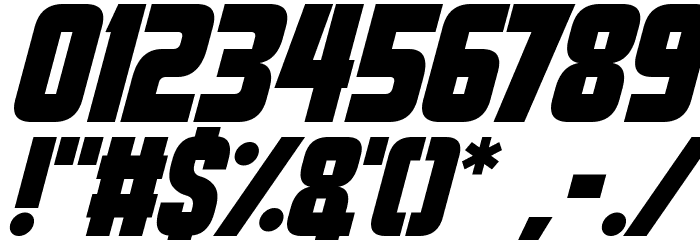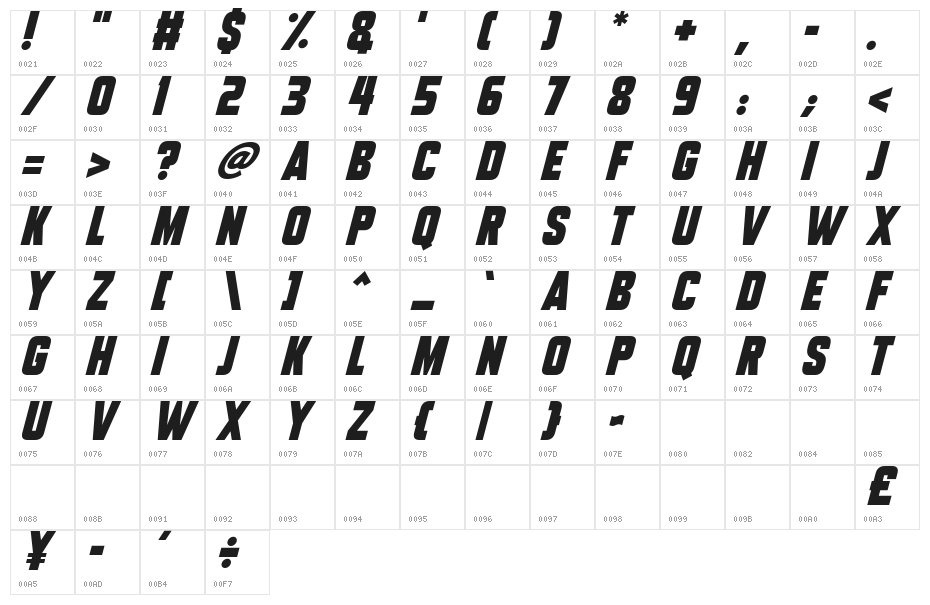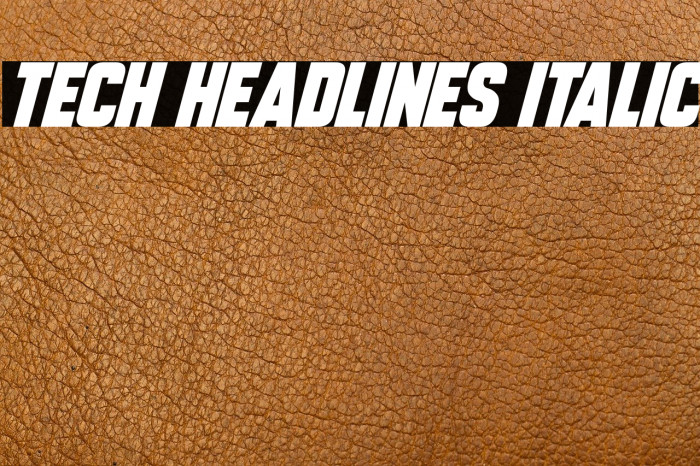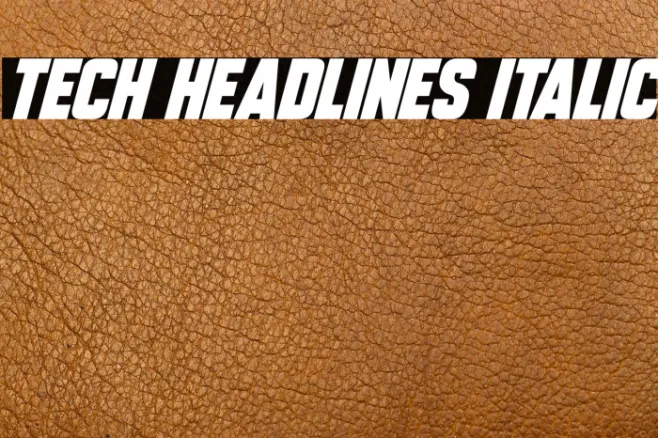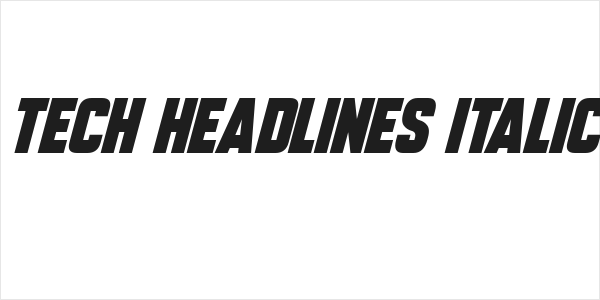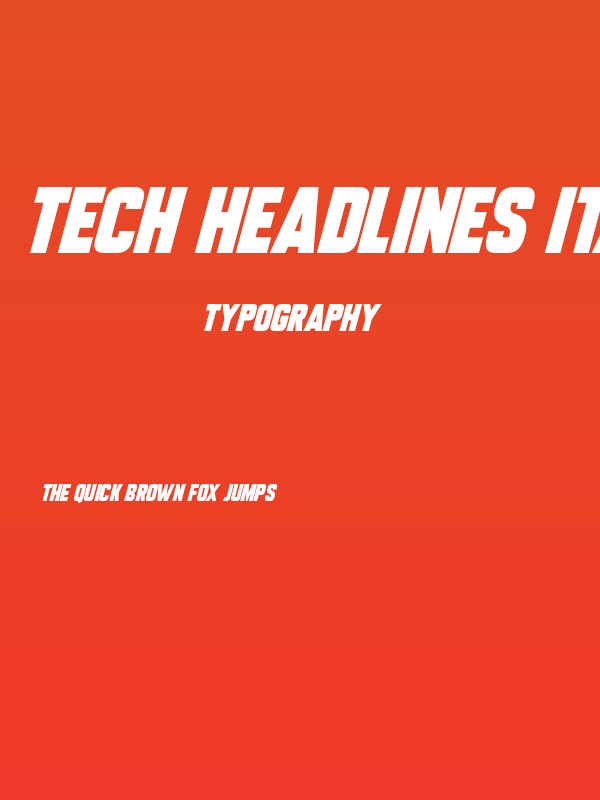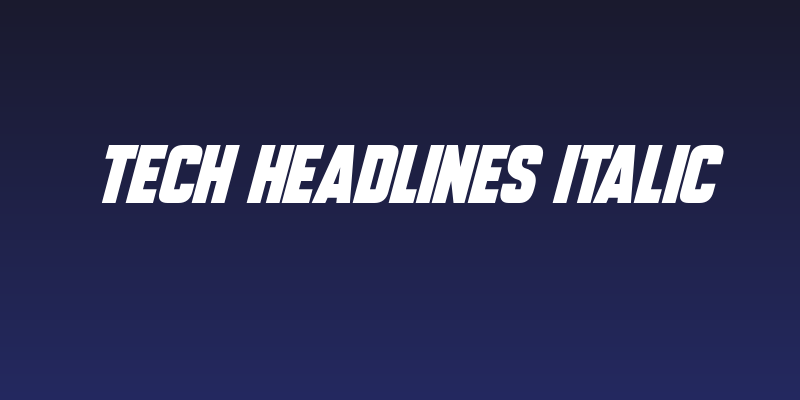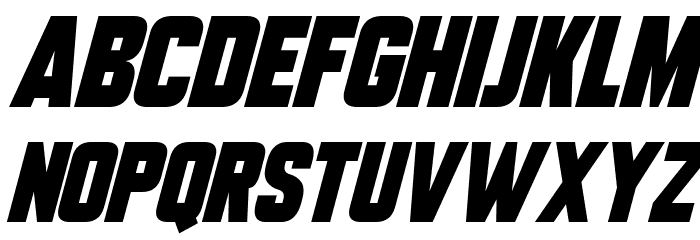
Tech Headlines Italic Font
Tech Headlines Italic Description
This font features a bold, italicized style with a strong, impactful presence. The characters are designed with a modern, tech-inspired aesthetic, showcasing sharp angles and a forward-leaning posture that conveys motion and dynamism. The uppercase and lowercase letters maintain a consistent weight, contributing to a cohesive look. Numbers and special characters are equally bold, ensuring legibility and emphasis. The font's design is suitable for making statements, with its thick strokes and italic slant adding a sense of urgency and importance.
| Proposed Projects | Ideal for technology-related branding, headlines, posters, and advertisements where a strong, modern impact is desired. |